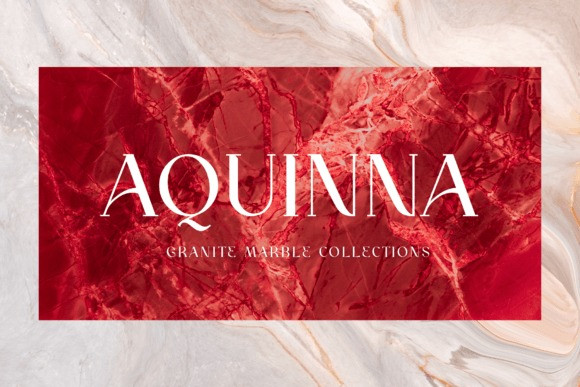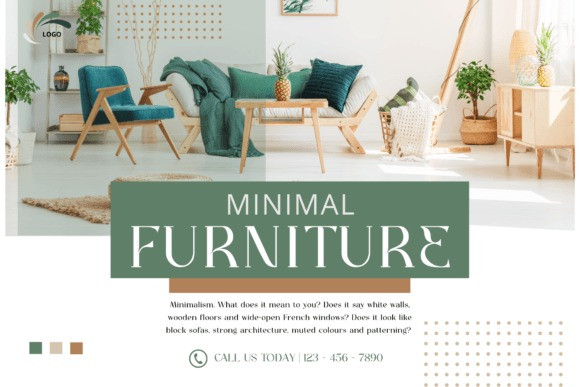
Grytha Angel Font
Grytha Angel Font is a sophisticated, charming serif font with a fashionable touch. Due to its luxurious appearance, the font can be an incredible fit for deluxe and chic design ideas.